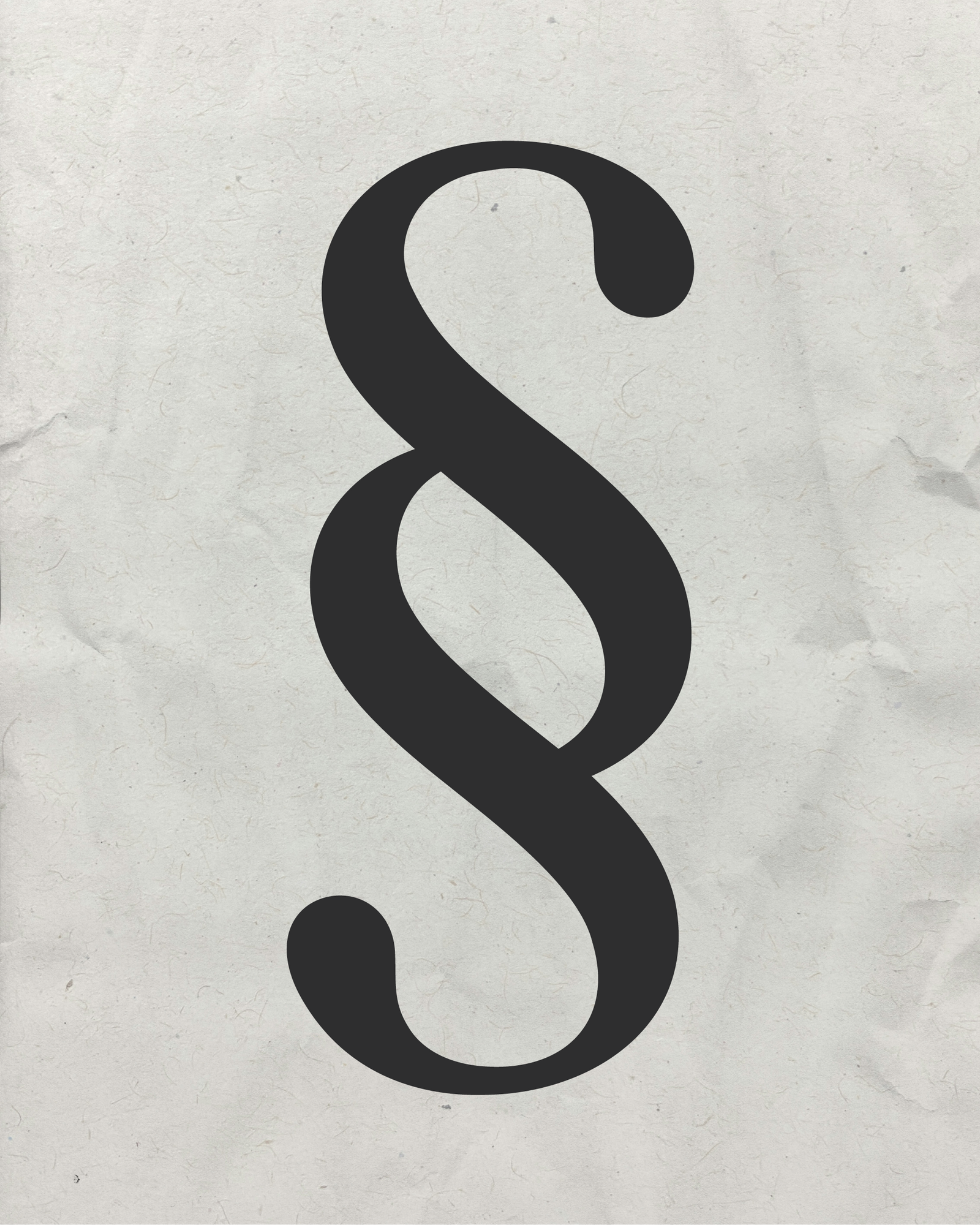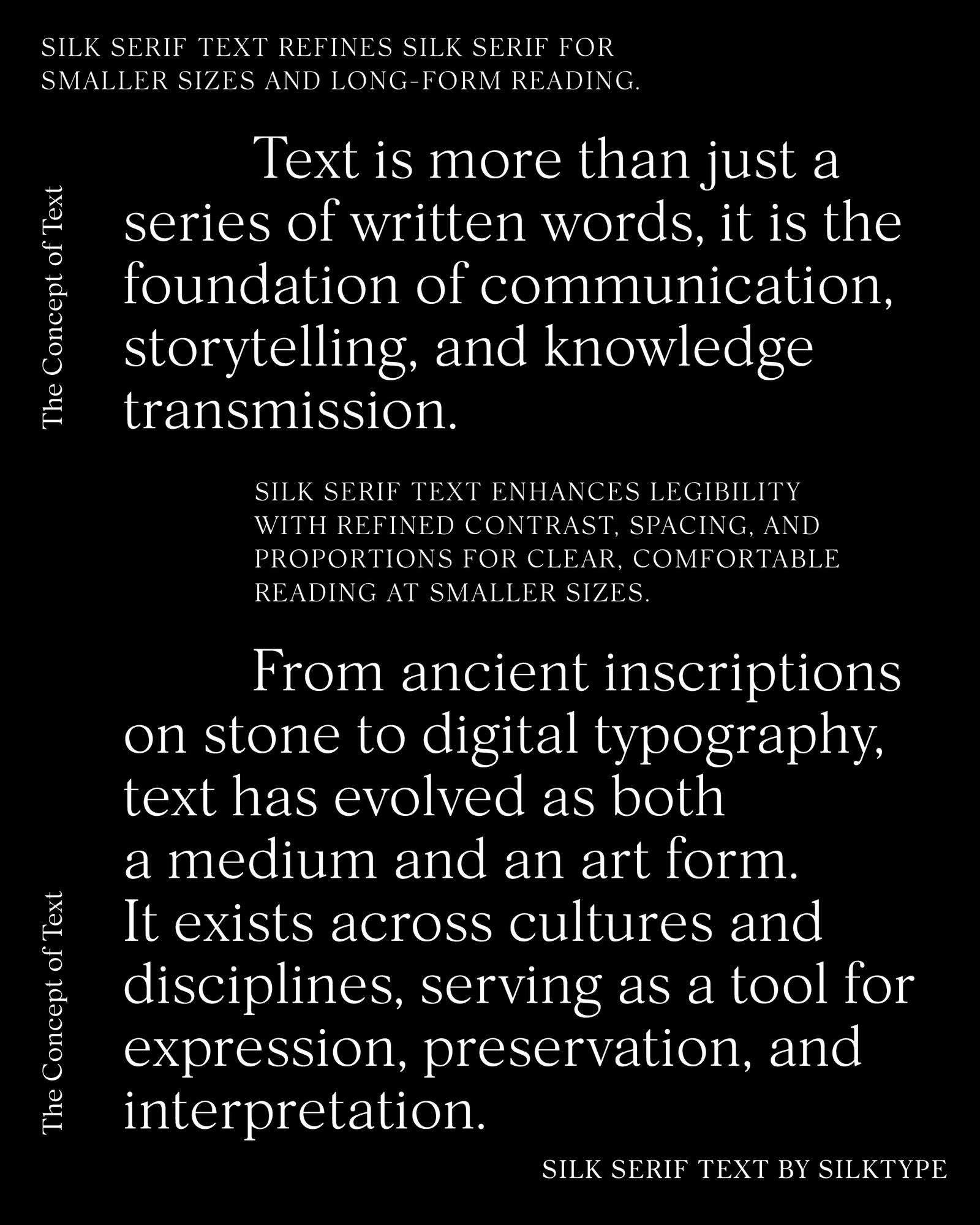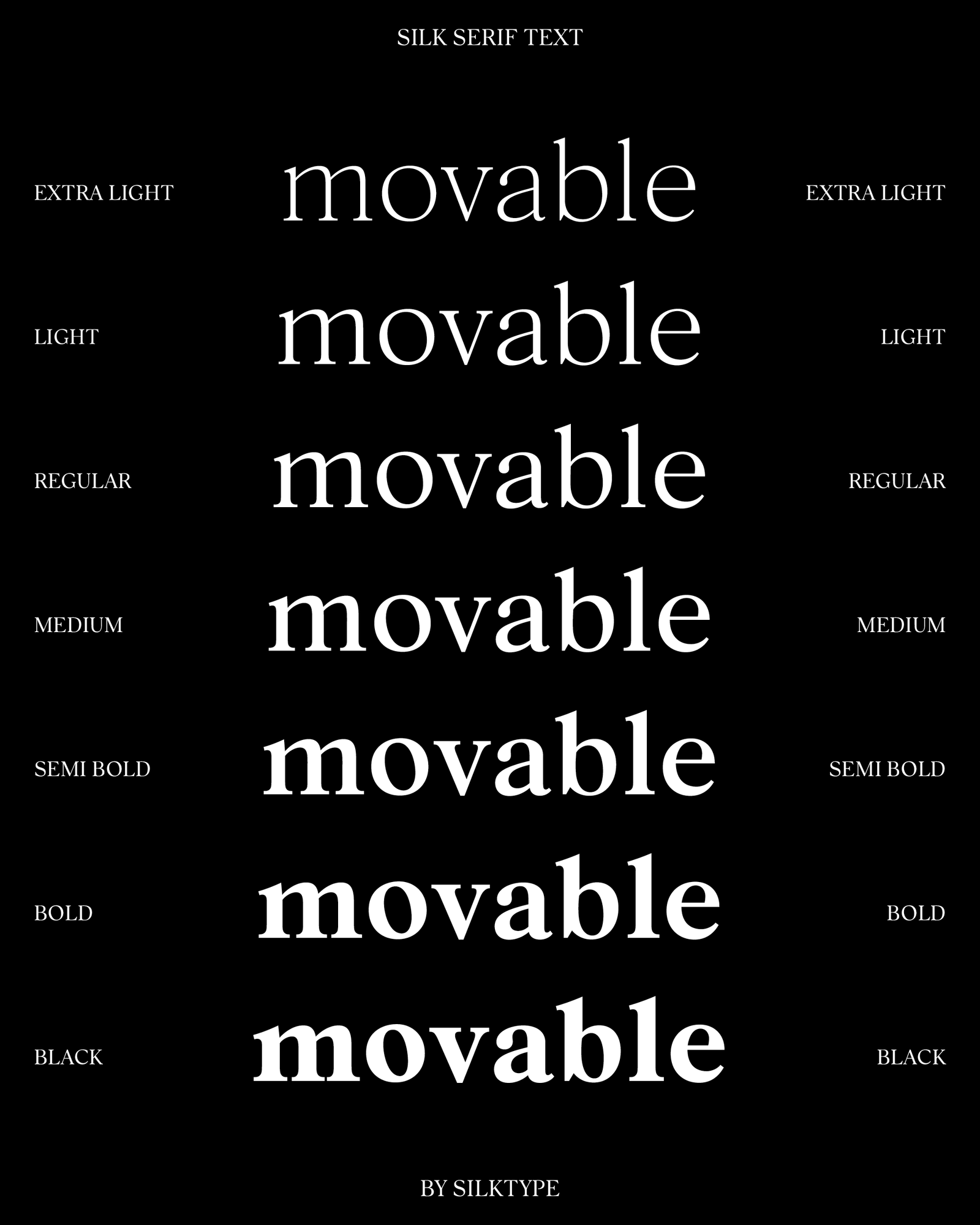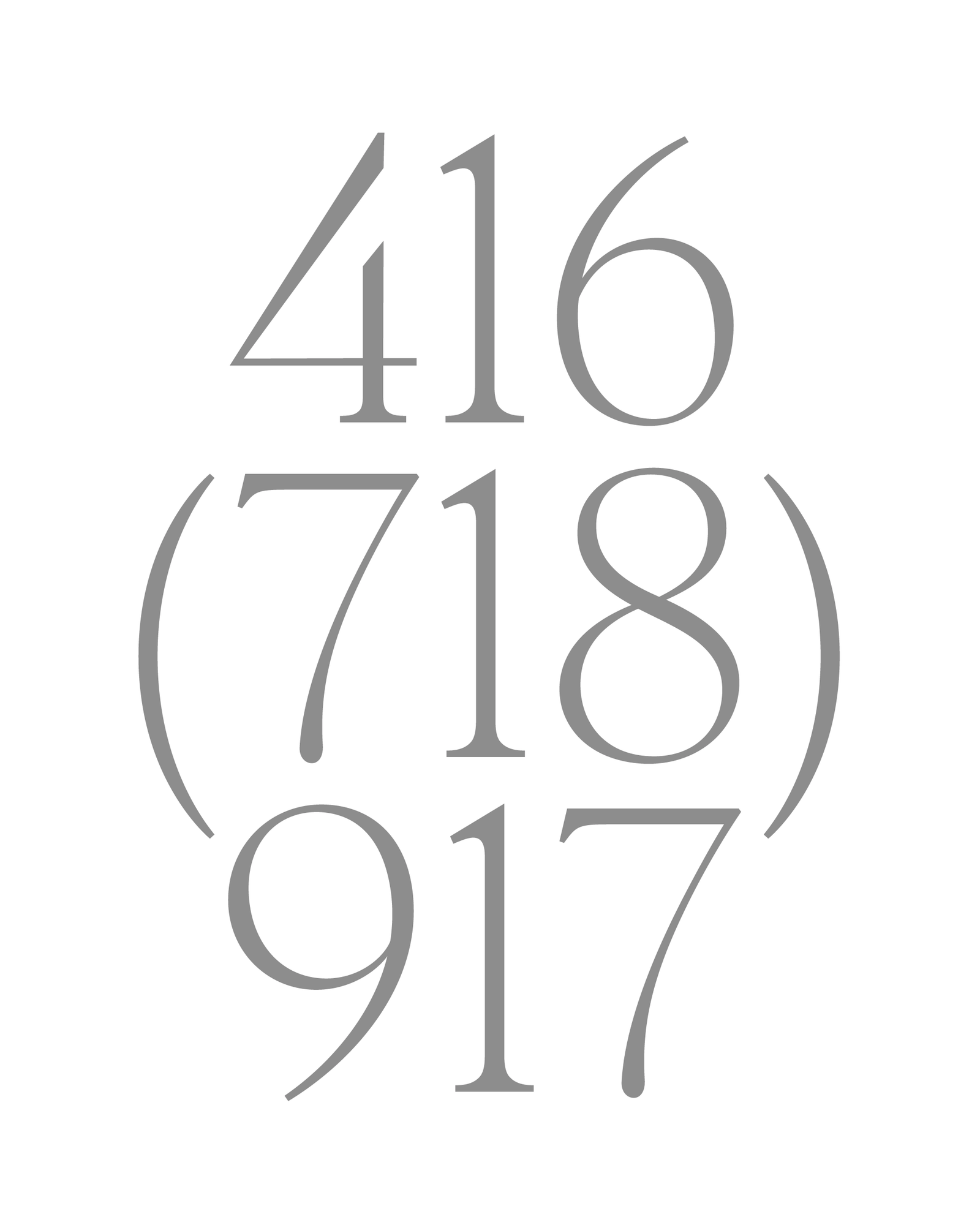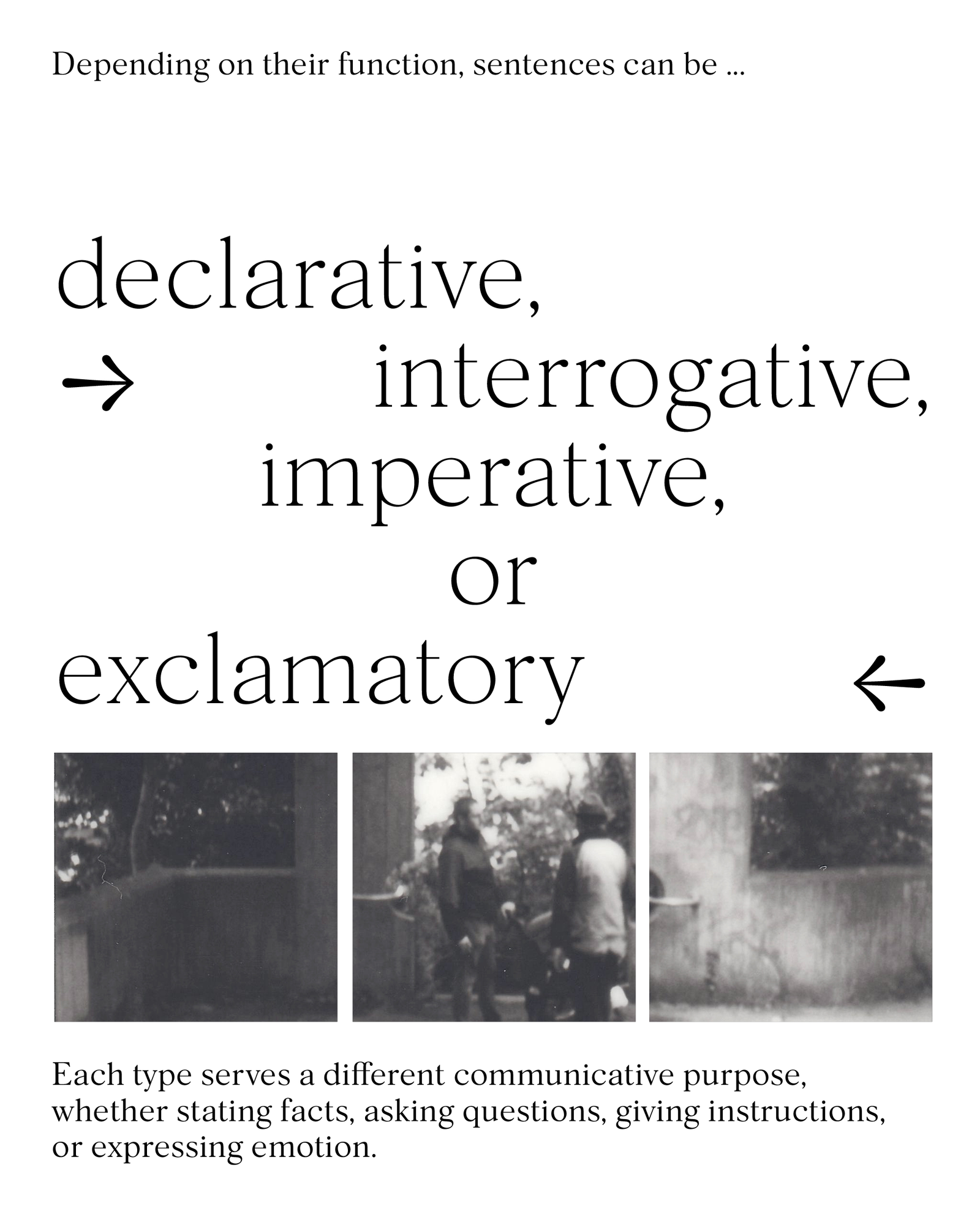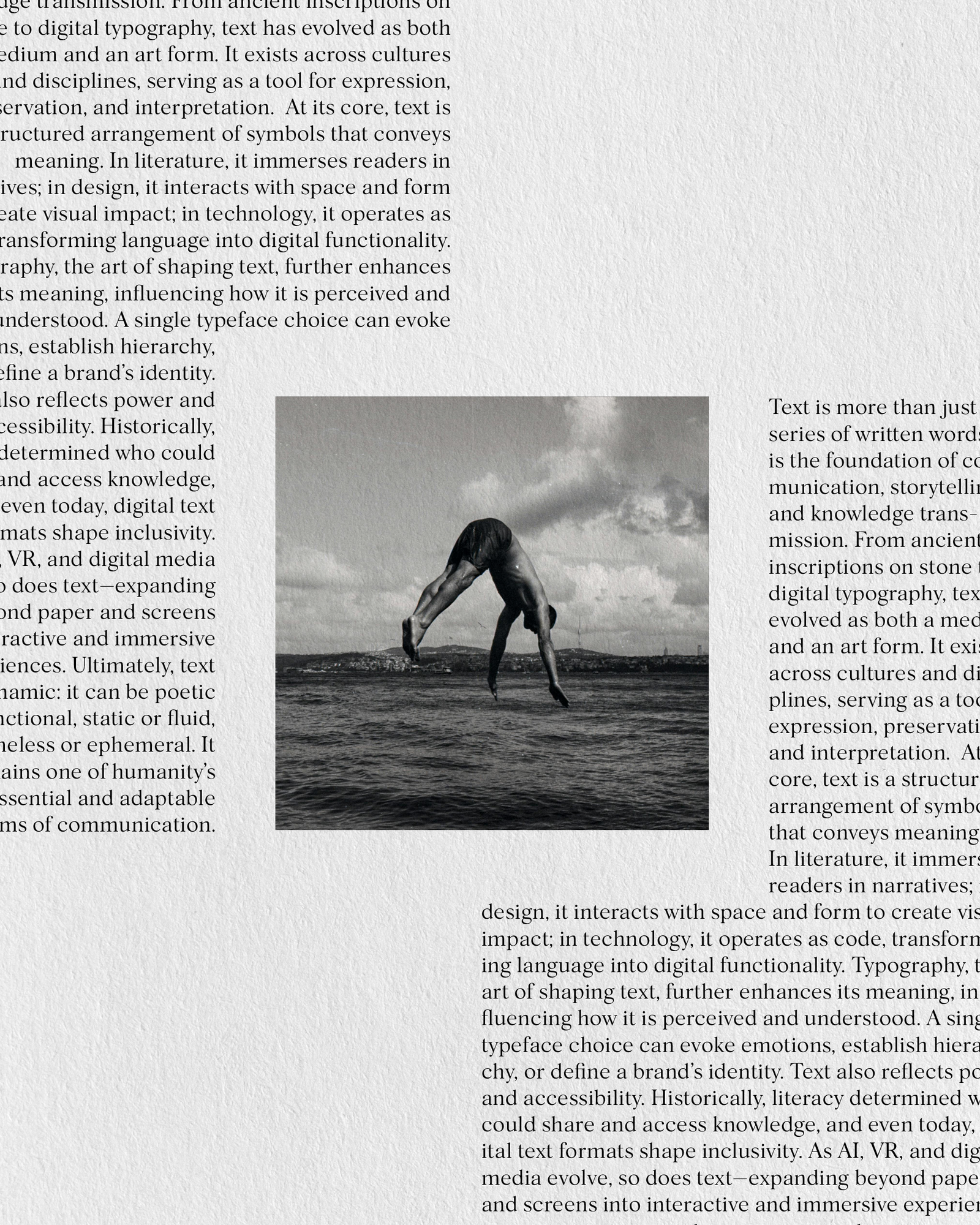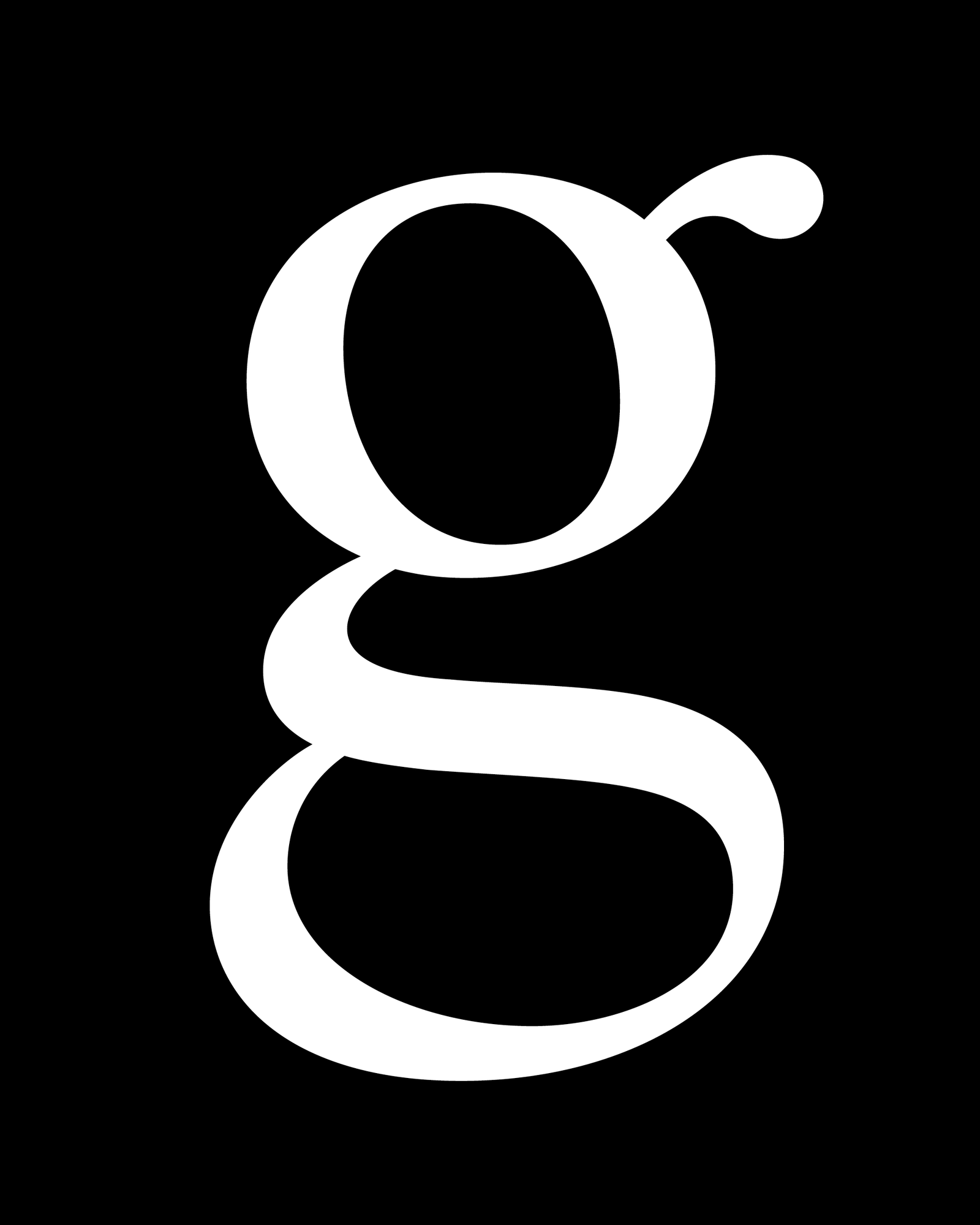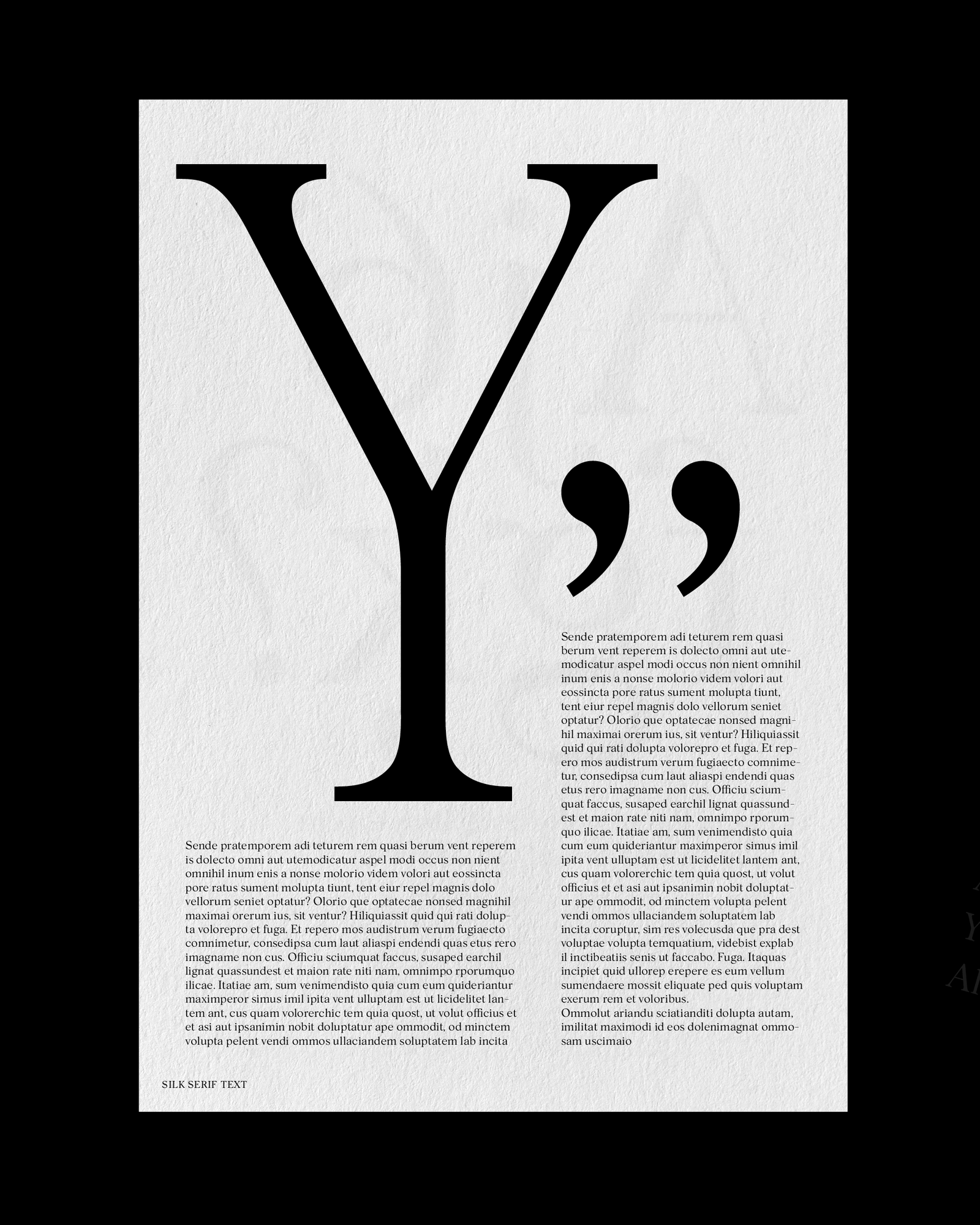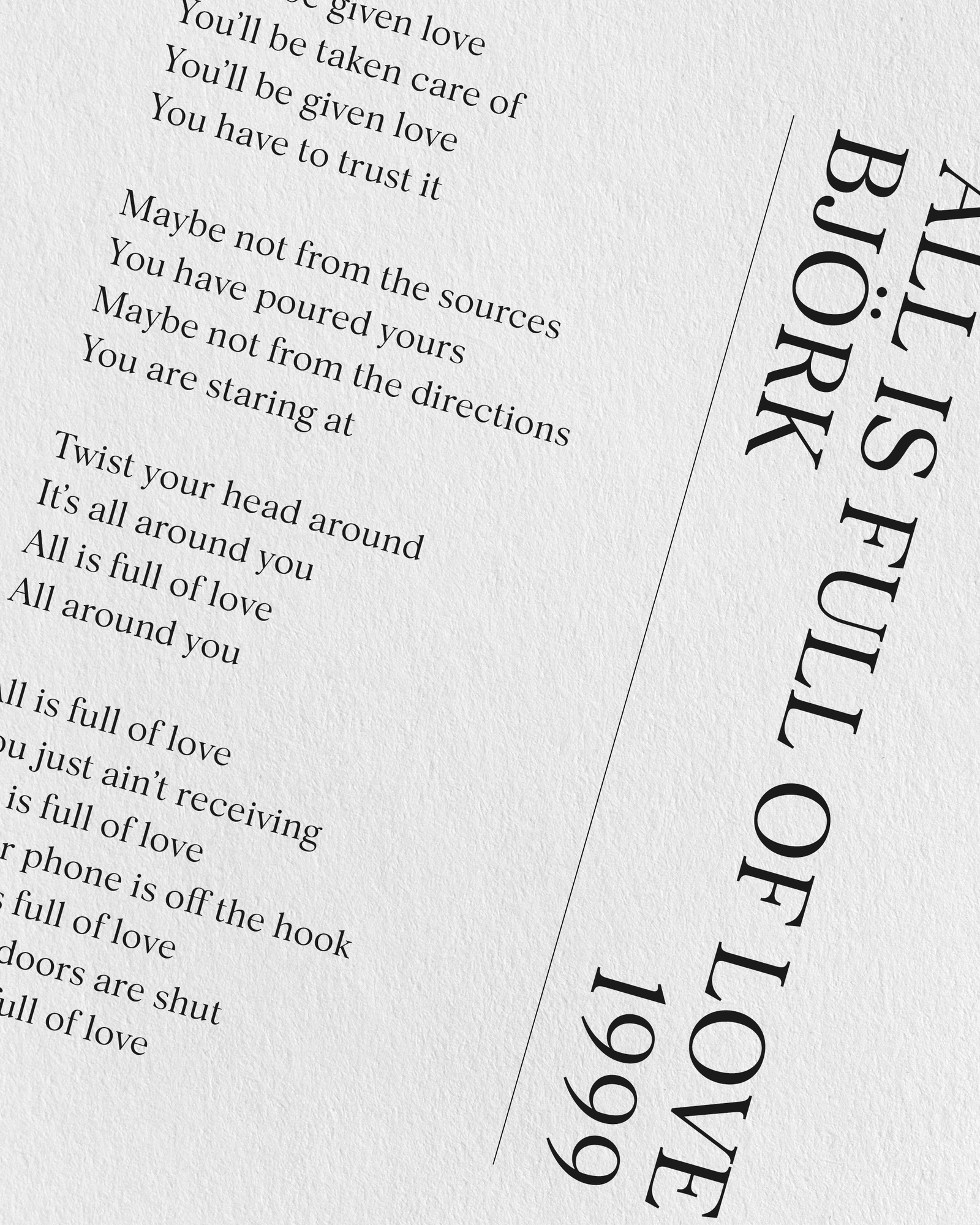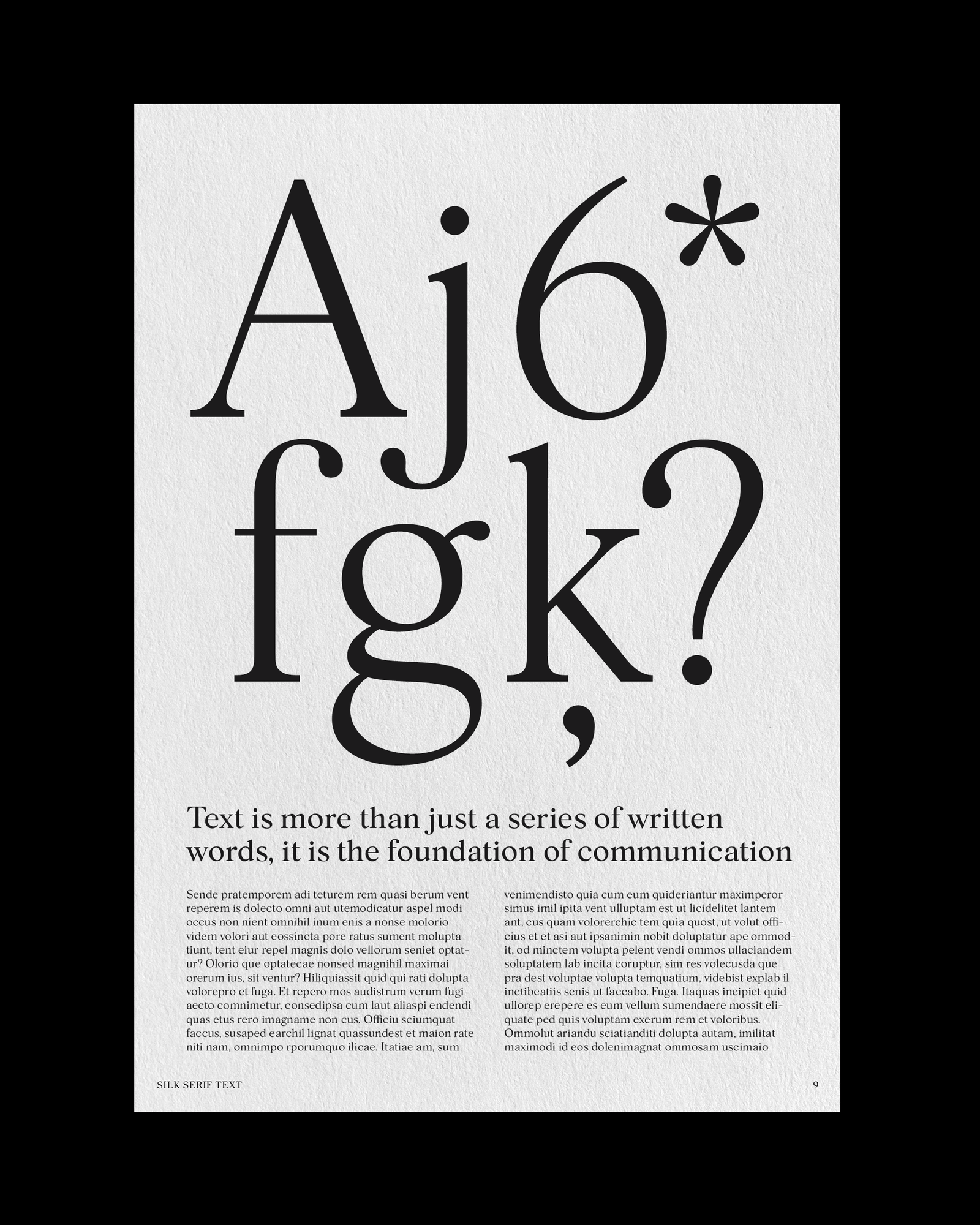
Silk Serif Text is a refined extension of Silk Serif, designed specifically for smaller text sizes while maintaining the signature elegance and sophistication of the original. With adjusted proportions, lower contrast, and improved spacing, Silk Serif Text ensures optimal readability in captions, body text, and long-form content. Crafted to pair seamlessly with Silk Serif, this version brings the same timeless aesthetic into editorial layouts, branding, and print materials, where clarity and legibility matter. Whether used on its own or alongside Silk Serif, it offers a balanced, high-end typographic system for designers who demand both style and function.